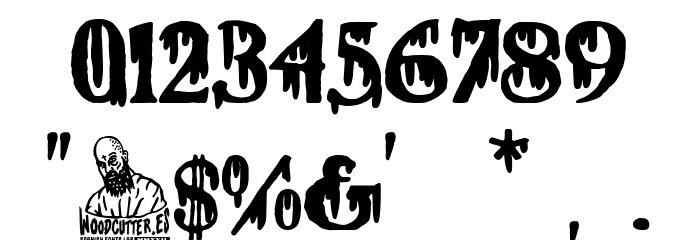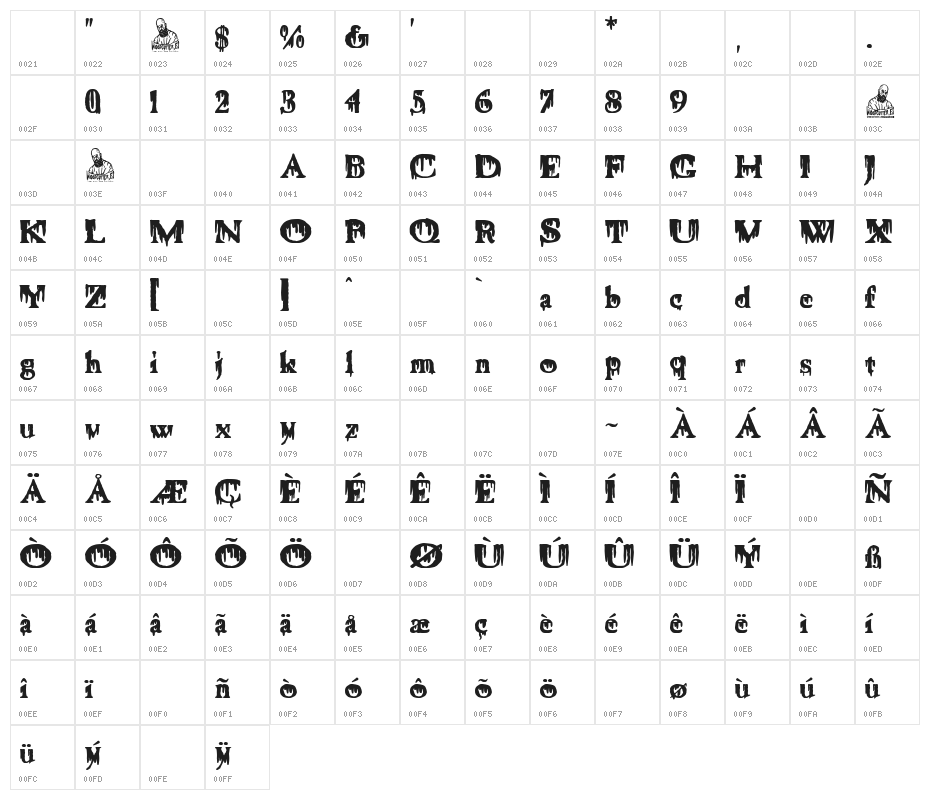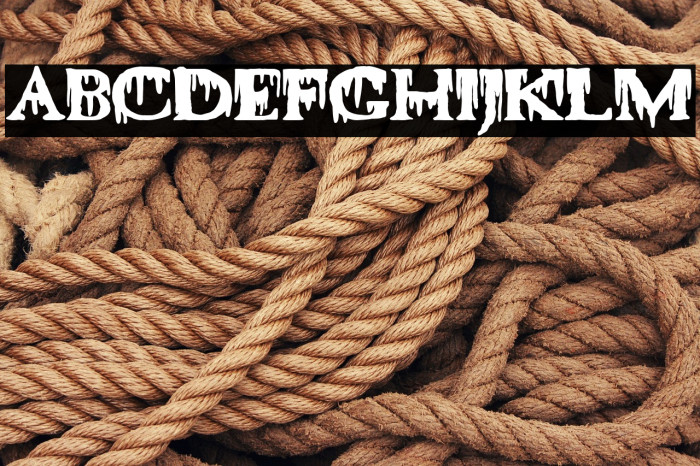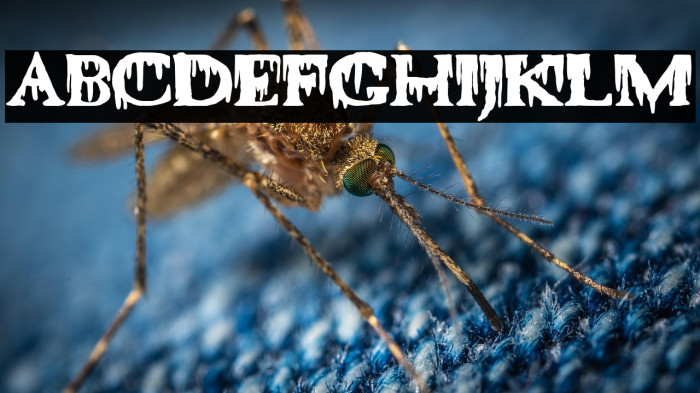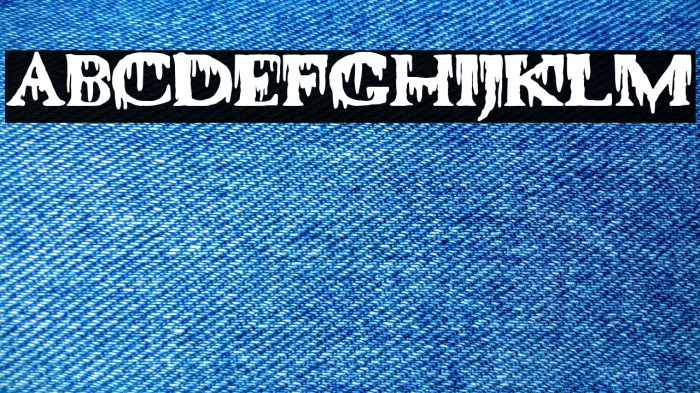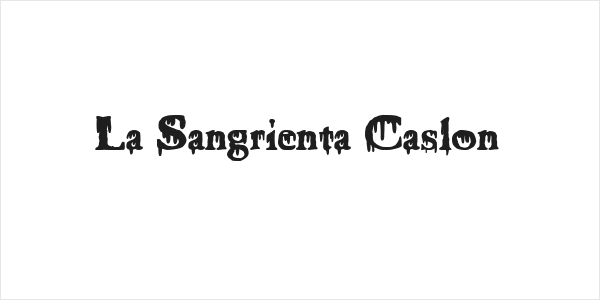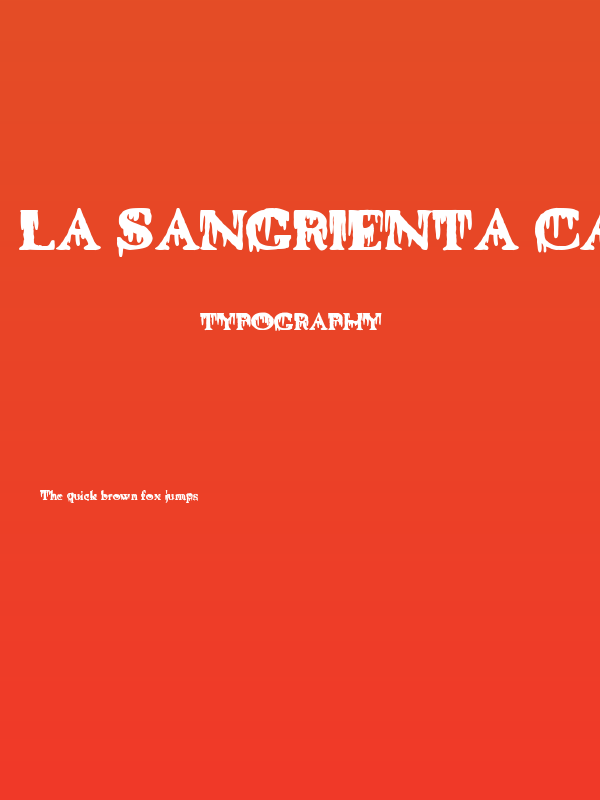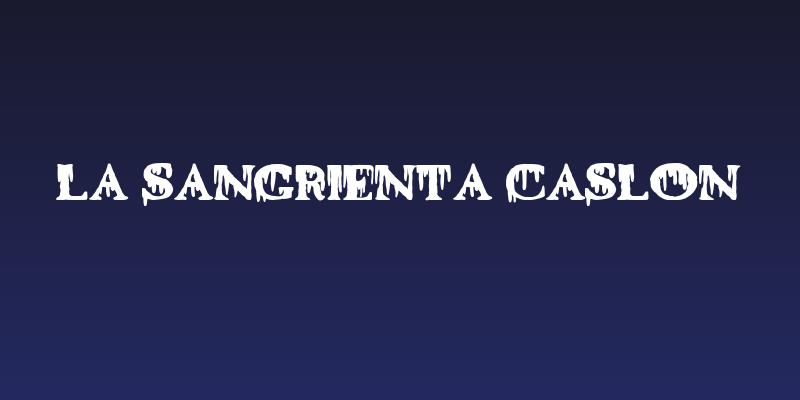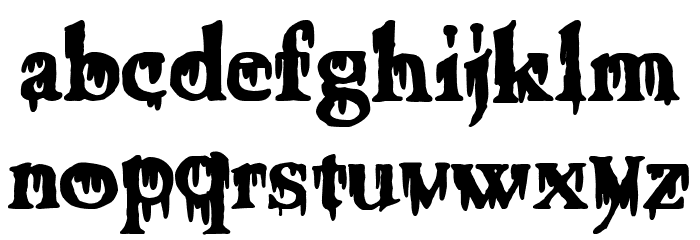
La Sangrienta Caslon Font
La Sangrienta Caslon Description
This font features a dramatic and eerie style, characterized by its dripping, blood-like effect on each character. The uppercase and lowercase letters maintain a consistent theme, with sharp edges and irregular, jagged forms that evoke a sense of horror and mystery. The numbers and special characters follow the same aesthetic, making the font ideal for creating a cohesive and thematic design. The overall appearance is bold and impactful, drawing attention with its unique and unsettling design.
| Use Case | Headlines, Posters, Themed Events |
| Proposed Projects | Ideal for Halloween-themed projects, horror movie posters, haunted house flyers, and any design requiring a spooky or eerie atmosphere. |